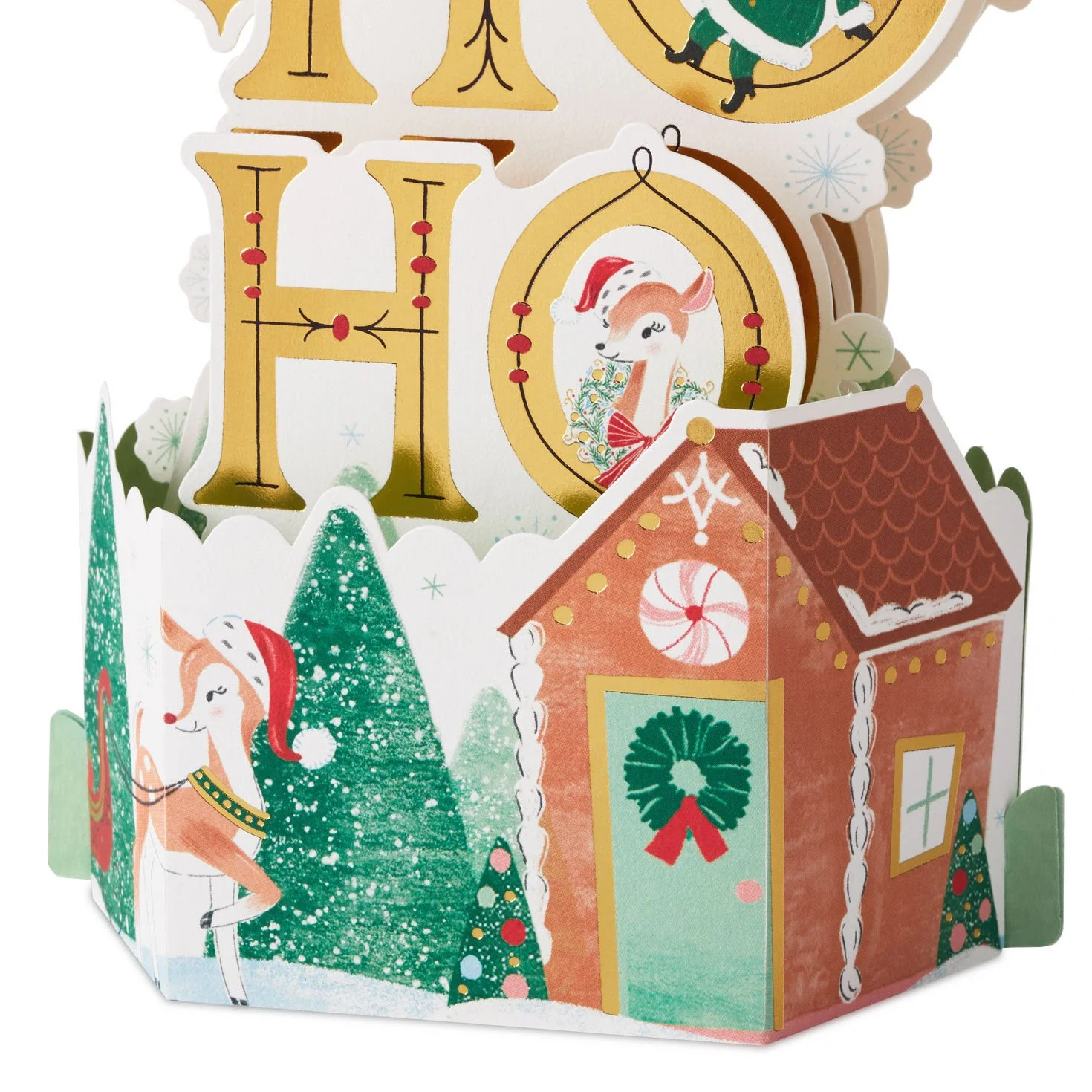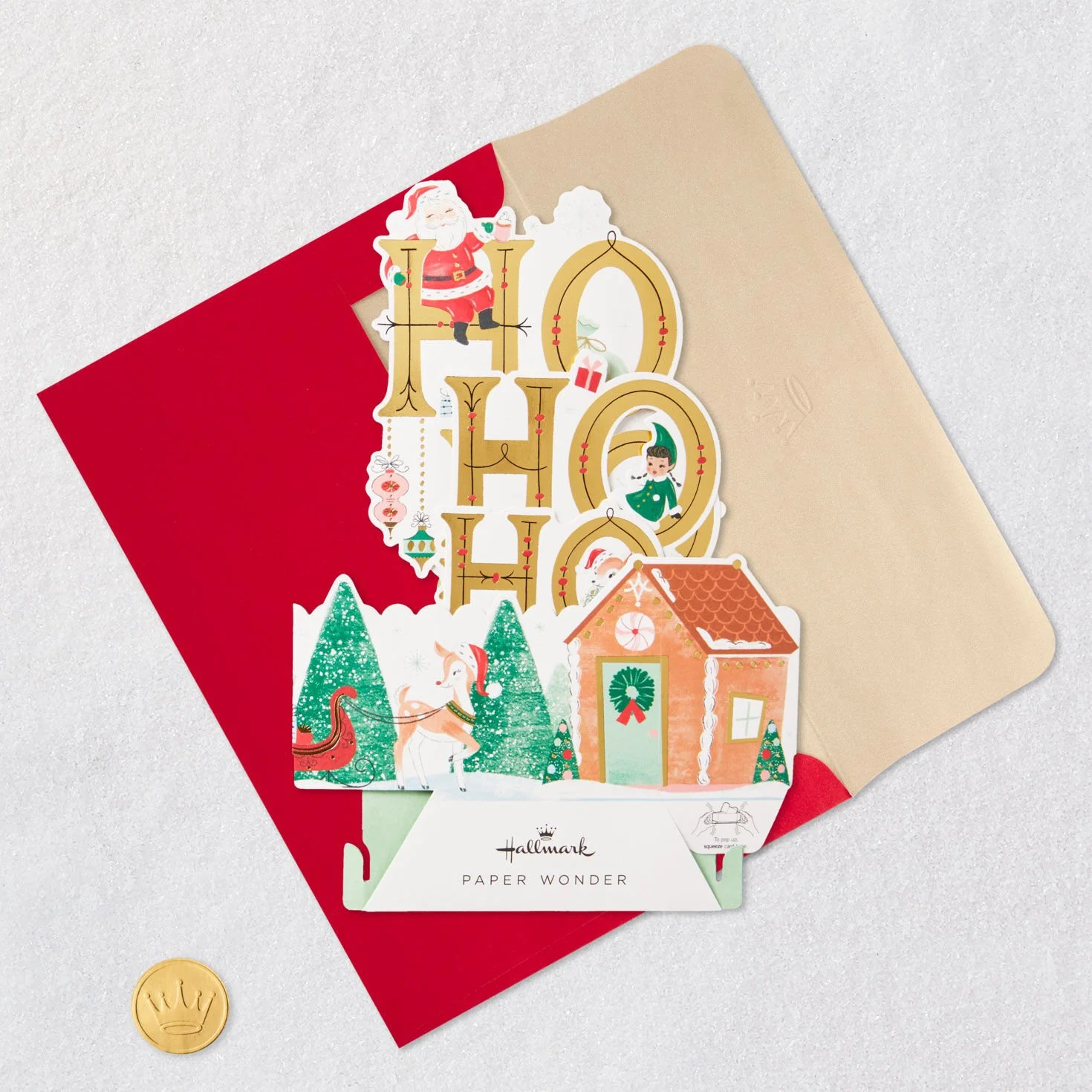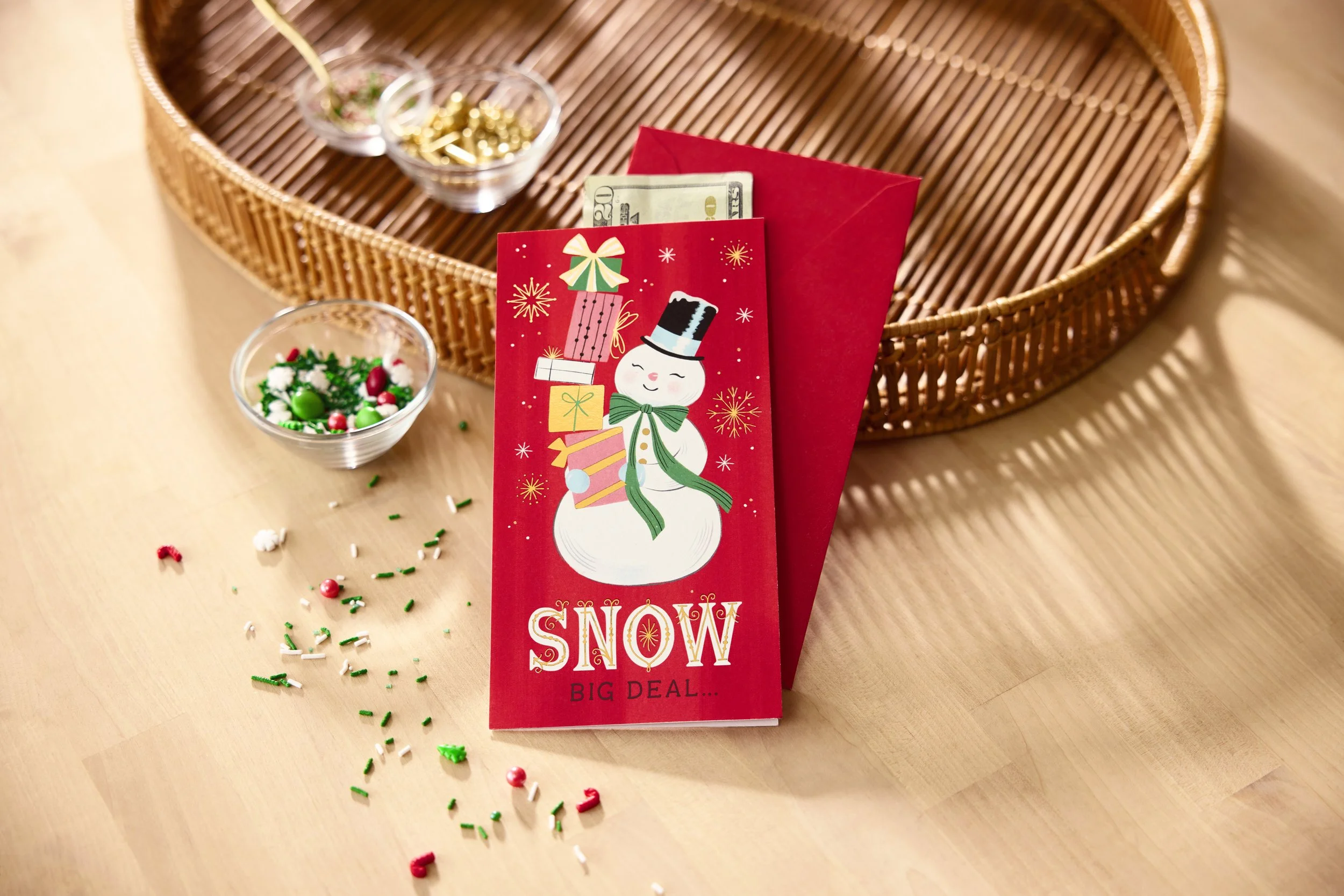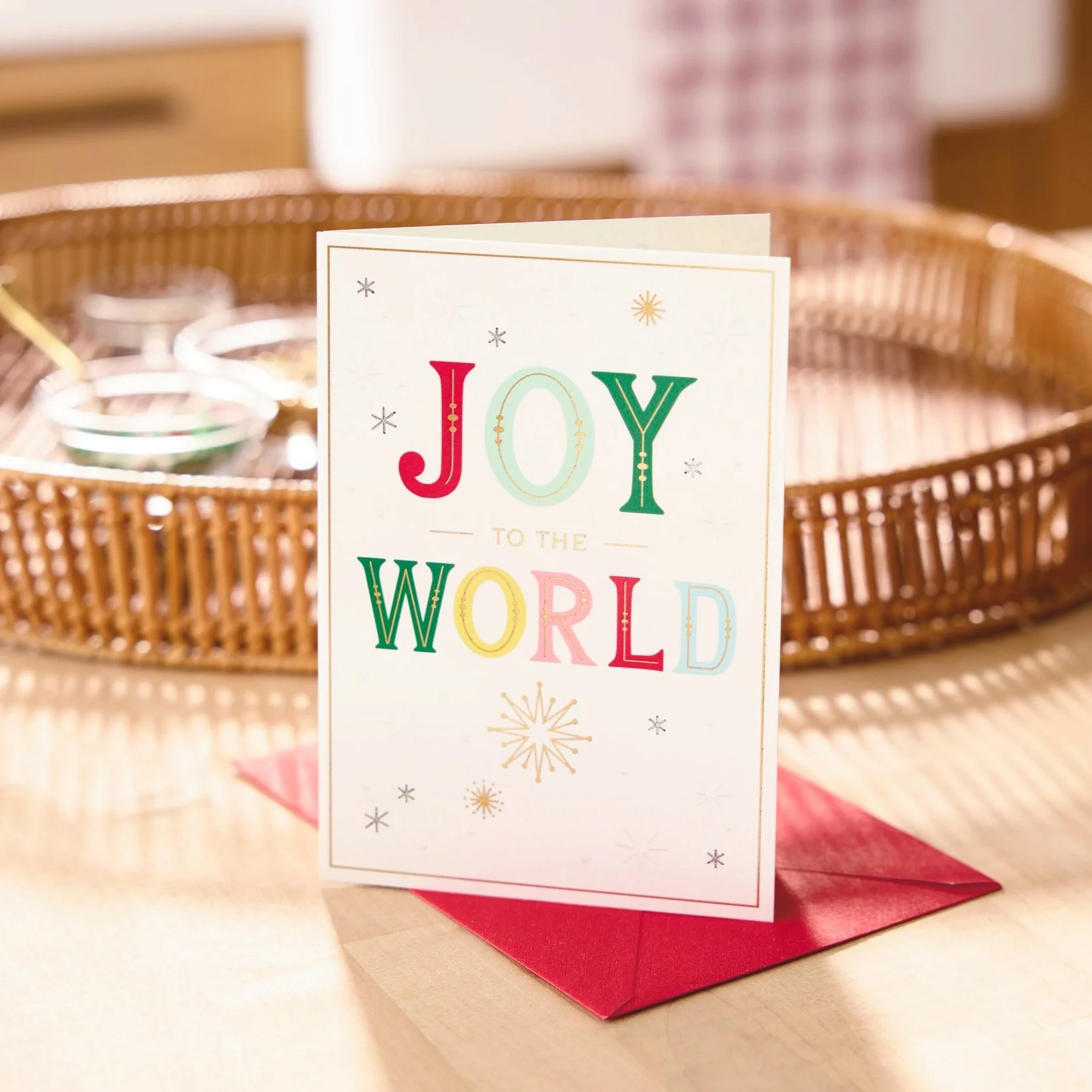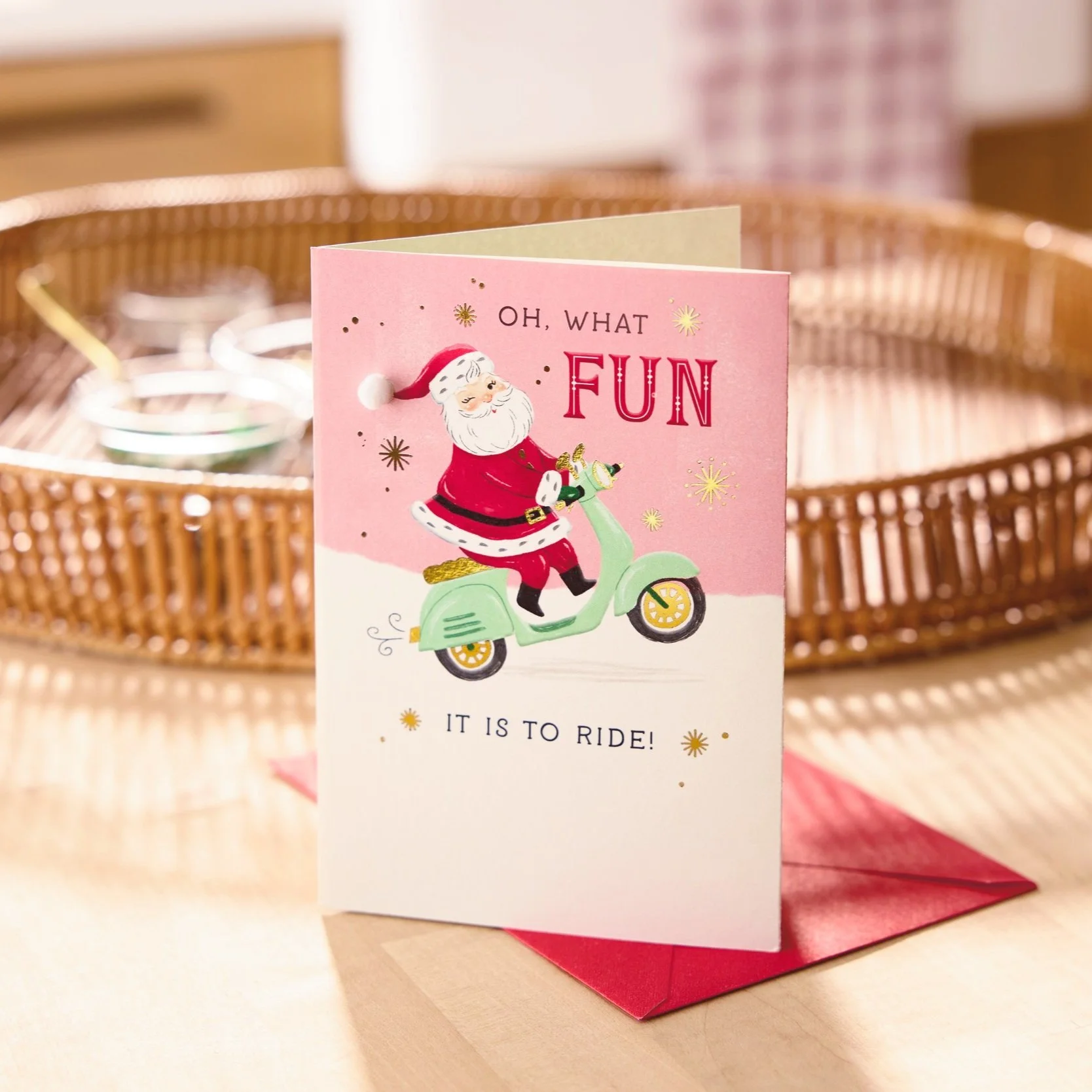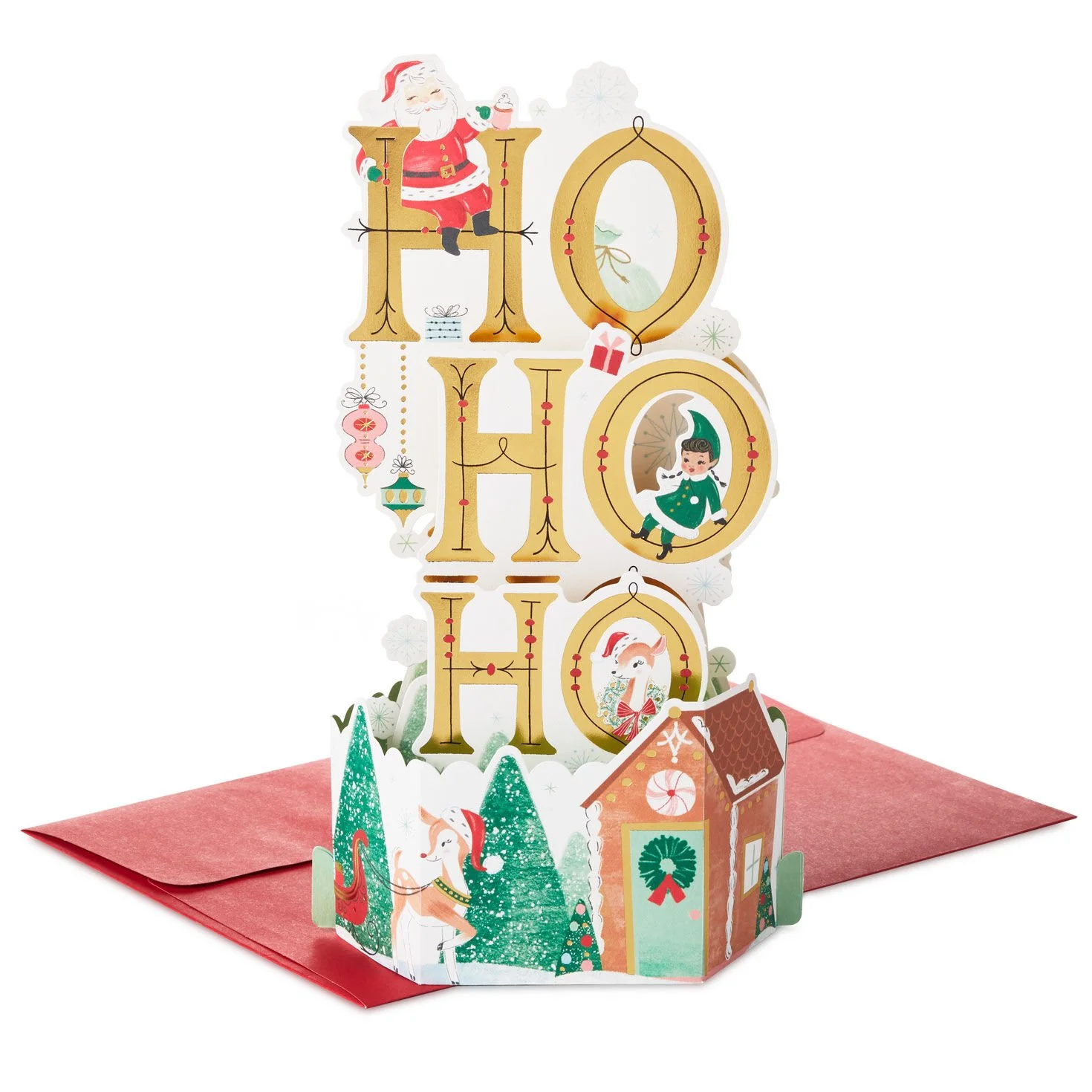
Fieldnotes for Just Because
Hallmark’s Just Because card line just got a refresh! I was thrilled to see their designers use my casual script font, Fieldnotes, on a several cards. These are so sendable and fun – especially with the poppy color palettes. Fieldnotes was a collaboration with Senior Font Designer Josh Scruggs.
Holiday Greetings Lettering
As a part of the holiday style guide I worked on two lettering looks. The first decorative one was built off of a style established by Flora Chang and I adjusted for the needs of this season. Secondarily I created a new soft-serif font with Josh Scruggs that accompanied the more decorative look. I love how these cards turned out and utilize both lettering styles!
Hallmark Holiday Photo Cards Lettering
Hallmark has a wonderful selection of photo card designs for the holiday season this year! The two below feature my font, Fieldnotes created by Josh Scruggs, and then my “Merry Christmas” hand lettered title. I’m excited to get working on my personal holiday cards very soon!
Fieldnotes Font
At Valentine’s Day three years ago I was able to first share my Fieldsmith font when it was used on several heart day cards. Today I am excited to share my second font collaboration, Fieldnotes! Created by Josh Scruggs (a fellow KU alum!), this casual script comes in two versions (one textured, one smooth). This font is named to accompany my previous font as it also nods back to my maiden name, Fields. I’ve noticed Fieldnotes used on some recent Hallmark social posts as well. I can’t wait to see all the ways designers will continue incorporating it into their work!